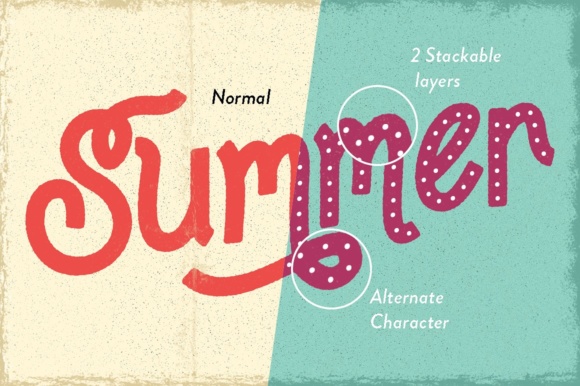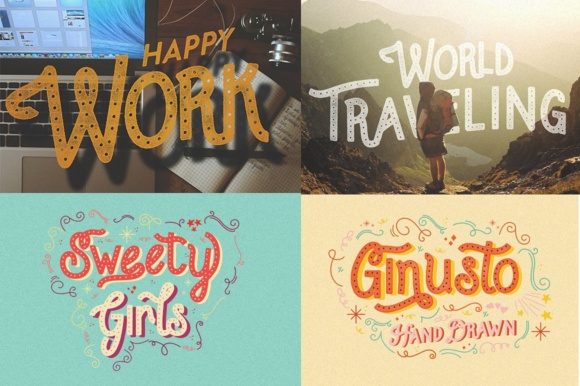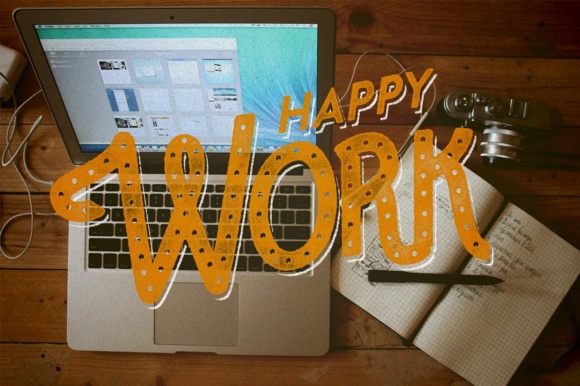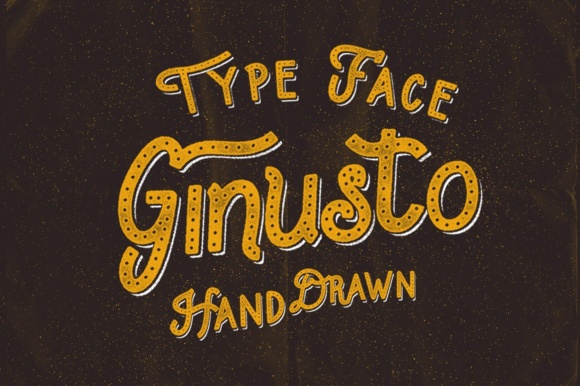
Ginusto Family Font: Elevate Your Designs with Elegance and Versatility
In the realm of typography, a font family that offers both aesthetic appeal and functional versatility is a treasured find for designers and crafters alike. The Ginusto Family Font is one such gem that has been making waves in the design community. This beautiful family of fonts comes in 4 weights, accompanied by alternate characters and ornaments, designed to spark your creativity and streamline the process of creating stunning designs.
Understanding the Ginusto Family Font
The Ginusto Family Font is not just another addition to the vast world of typefaces; it’s a comprehensive family that understands the needs of modern designers. With 4 weights at your disposal, you have the flexibility to use it across various projects, from elegant luxury brands to more casual, playful endeavors. Whether you’re working on a sophisticated magazine layout, a captivating website, or unique craft projects, the Ginusto Family Font is up to the task.
Key Features of the Ginusto Family Font
- 4 Weights: The family includes four different weights, offering you the range to play with different tones and emphasis within your designs. This versatility ensures that your typography remains cohesive while allowing for expressive hierarchies.
- Alternate Characters: To add a personal touch to your designs, the Ginusto Family Font comes equipped with alternate characters. These variations enable you to introduce diversity and uniqueness into your text, making it stand out.
- Ornaments: The inclusion of ornaments is a delightful feature for designers looking to add an extra layer of elegance or whimsy to their work. These decorative elements can be used to create visually appealing headings, dividers, or even as part of a brand’s identity.
The Ginusto Family Font is more than just a typeface; it’s a tool that bridges the gap between creativity and practicality. For designers, it offers the means to create cohesive and engaging visual communications. For crafters, especially those involved in DIY projects, scrapbooking, or hand-lettering, it provides a professional and beautiful script to enhance their work.
Enhancing Your Design Workflow
With the Ginusto Family Font, the process of creating designs becomes more intuitive and enjoyable. The variety of weights and the presence of alternate characters and ornaments mean that you have a rich palette of typographic elements to work with. This not only saves time but also inspires creativity, allowing you to experiment with different looks and tones until you find the perfect fit for your project.
Tips for Using the Ginusto Family Font
- Mix and Match: Don’t be afraid to mix different weights and use alternate characters within the same project. This can add depth and interest to your designs.
- Ornament Usage: Use ornaments sparingly to highlight certain sections or to create a focal point. Their decorative nature makes them perfect for headings or as design elements.
- Experiment: Take the time to explore all the features of the Ginusto Family Font. Experimenting with different combinations will help you discover unique ways to use the font.
The Ginusto Family Font stands out as a versatile and beautiful typeface that can elevate your designs to new heights. Its range of weights, along with alternate characters and ornaments, provides a wealth of creative possibilities. Whether you’re a professional designer or a passionate crafter, incorporating the Ginusto Family Font into your projects can add a touch of elegance and sophistication. Embrace the creativity and flexibility it offers, and watch your designs transform in remarkable ways.